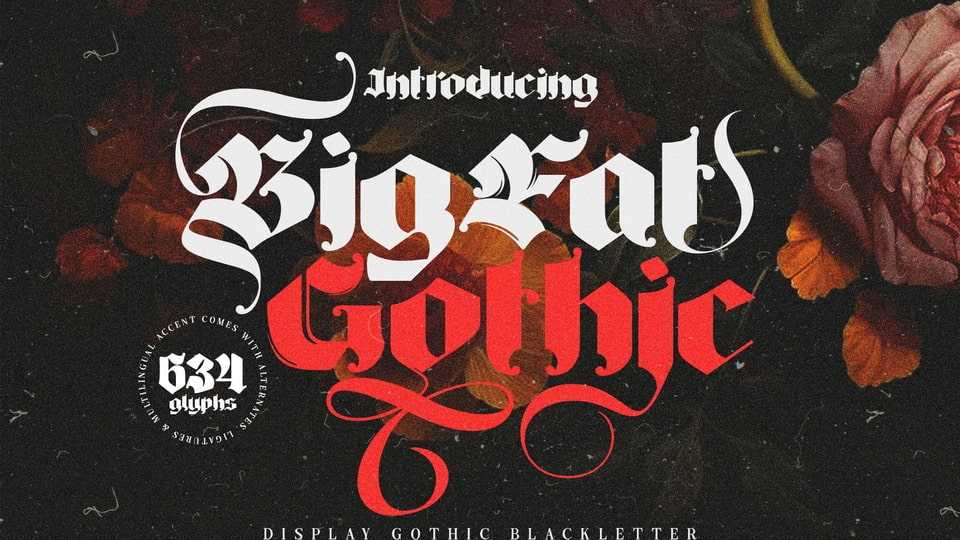
Download Big Fat Gothic font, a typeface that commands attention with its bold and robust Blackletter theme. Designed to make a statement, this font is perfect for projects where you want your text to stand out and demand notice.